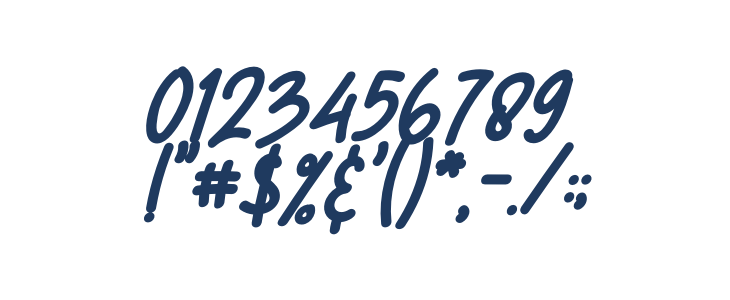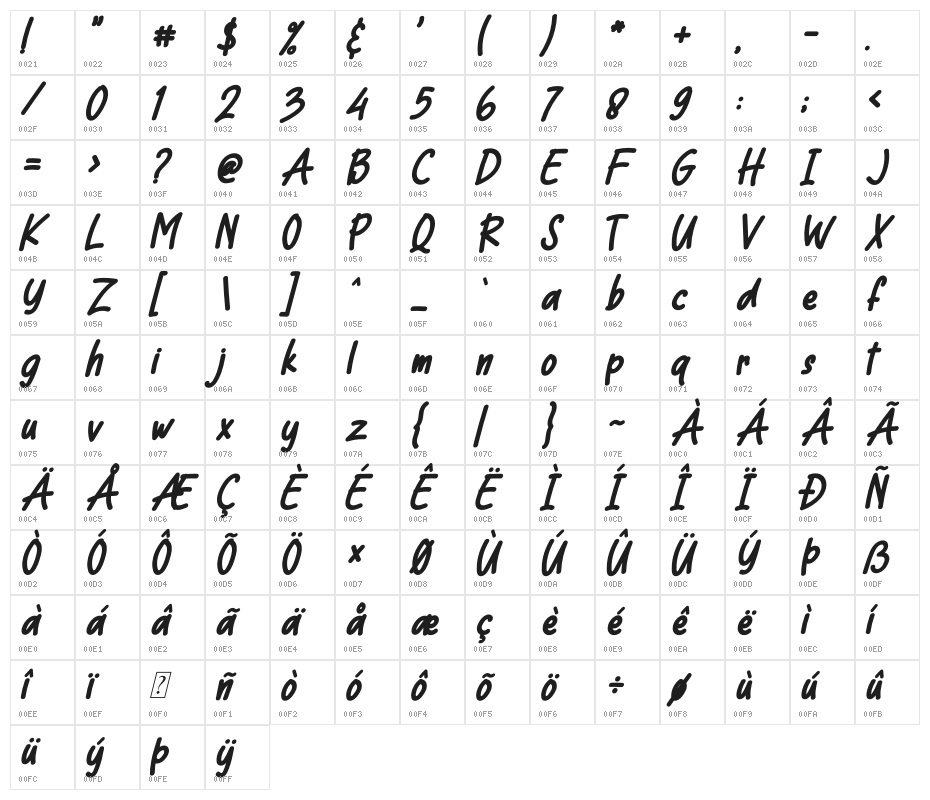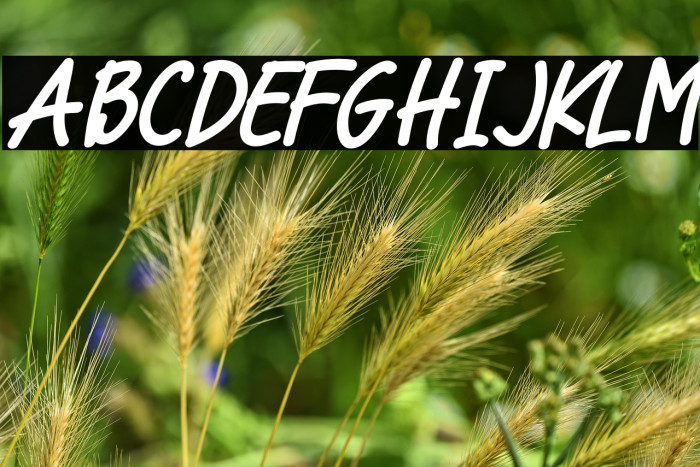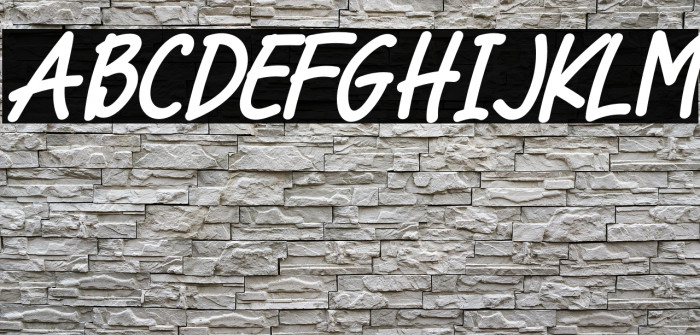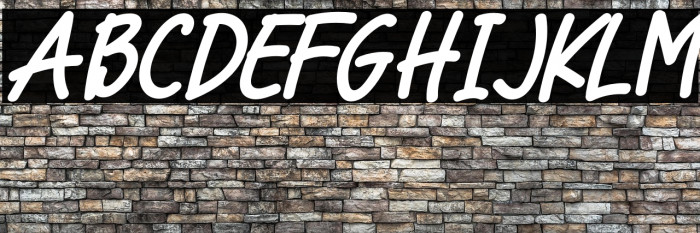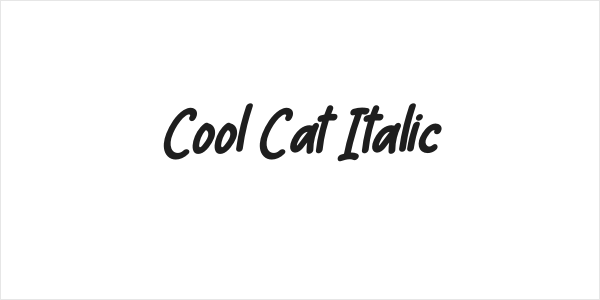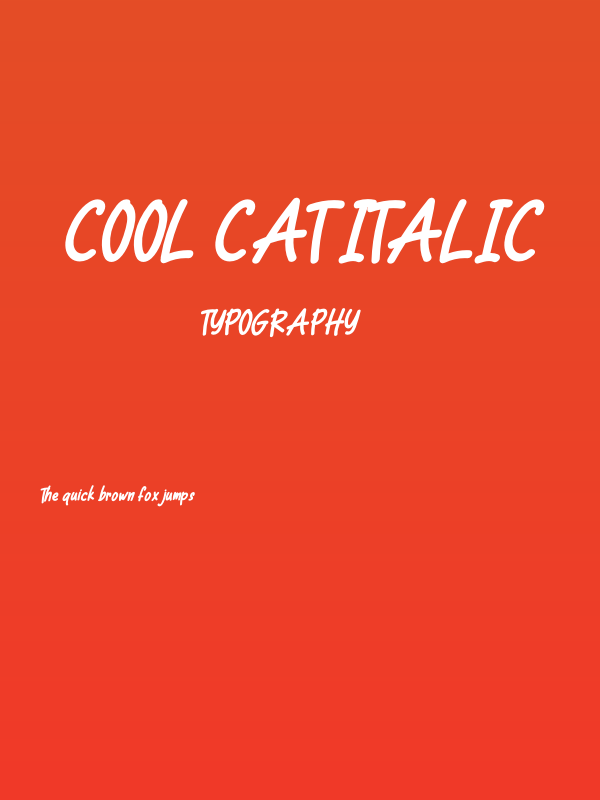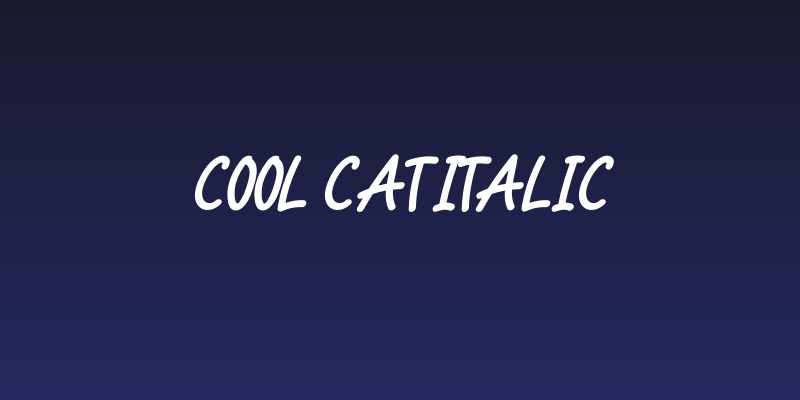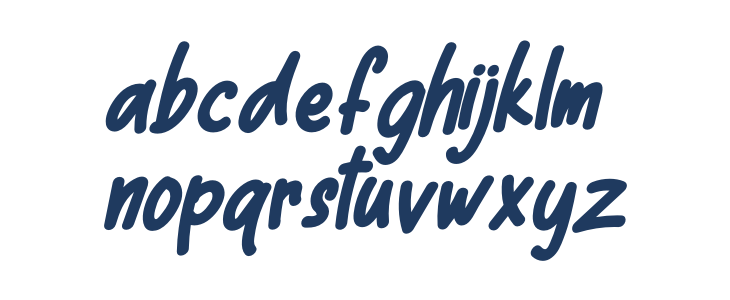
Cool Cat Italic Font
Cool Cat Italic Description
This font features a bold, dynamic script style with a playful and energetic flair. The letters are slanted, giving it an italicized appearance, and the strokes are thick and consistent, providing a strong visual impact. The uppercase letters are tall and slightly narrow, while the lowercase letters maintain a rounded, flowing form that enhances readability. The numbers and special characters are designed to match the lively and informal style of the alphabet, making it suitable for creative and expressive projects.